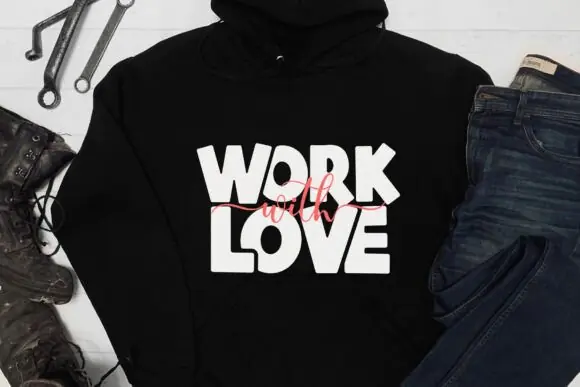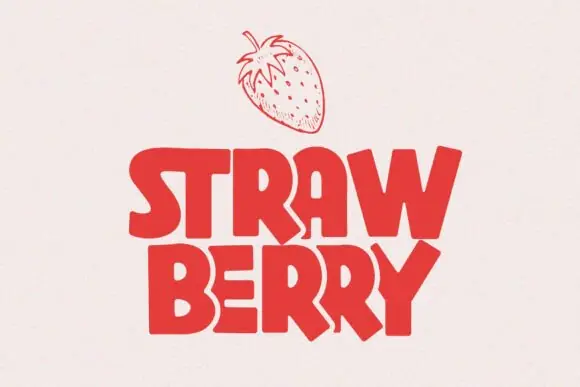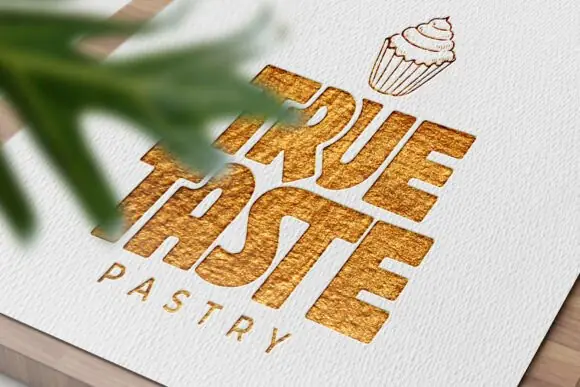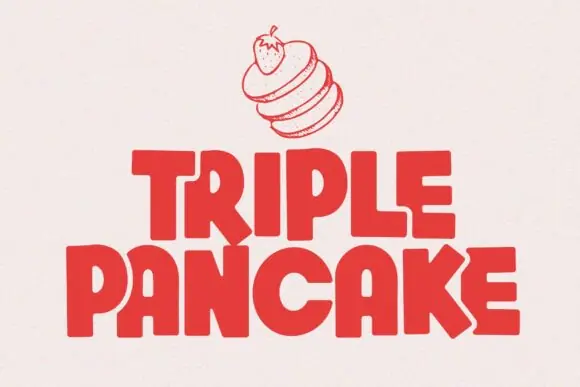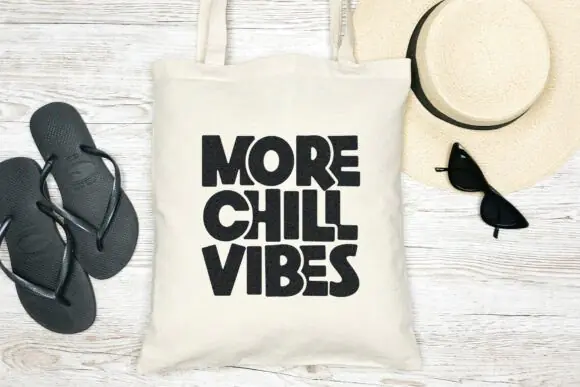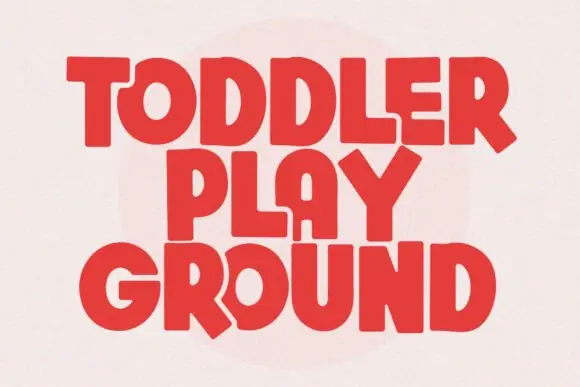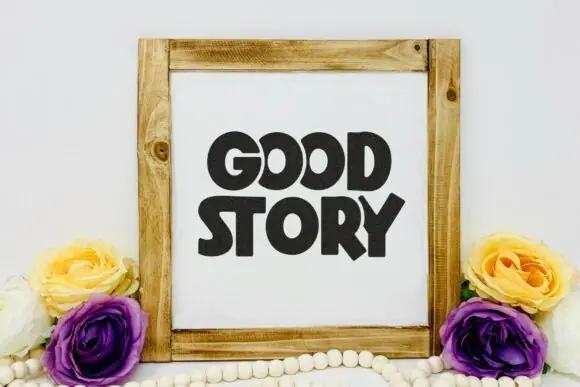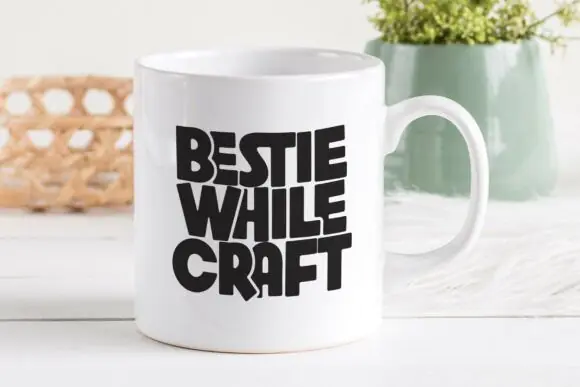
Truth Dare Bold All-Caps Display Font – Cute Rounded Typeface with Ligatures for T-Shirts, Stickers, Quotes, Tumblers, Sublimation, Craft Designs & Playful Creative Projects
Create bold, cute, and playful designs with Truth Dare Font, an all-caps display typeface designed with rounded corners and a fun handmade personality. Its strong letter style makes your text stand out instantly, while the soft rounded edges keep the design friendly, cheerful, and easy to use.
Truth Dare Font is perfect for cute-themed creative projects such as t-shirt designs, stickers, quote graphics, tumbler wraps, sublimation products, craft projects, posters, social media graphics, printable designs, party decorations, product labels, digital downloads, and playful merchandise. Its bold all-caps style works especially well for short phrases, attention-grabbing titles, and fun typography layouts.
This font also includes many ligatures, giving you extra design options and helping your text look more unique, polished, and custom-made. Whether you are creating Cricut crafts, sublimation artwork, cute quote designs, or bold sticker graphics, Truth Dare Font adds charm, energy, and personality to your designs.
Key Features
• Bold all-caps display font style
• Cute and playful visual personality
• Rounded corners for a soft friendly look
• Includes many ligatures for extra design options